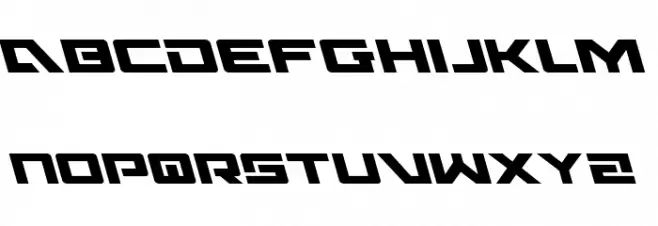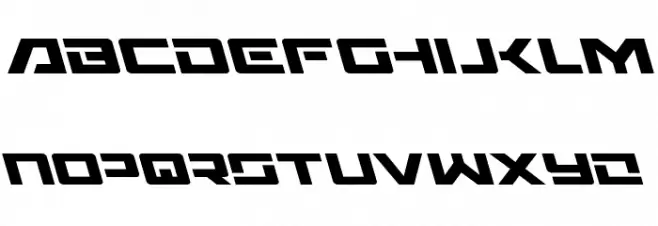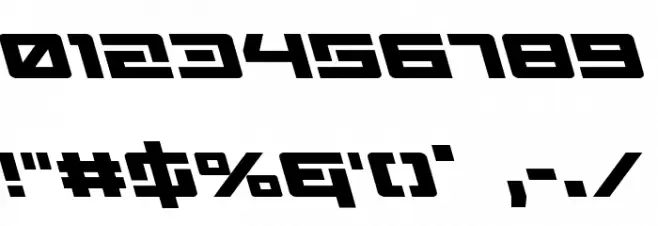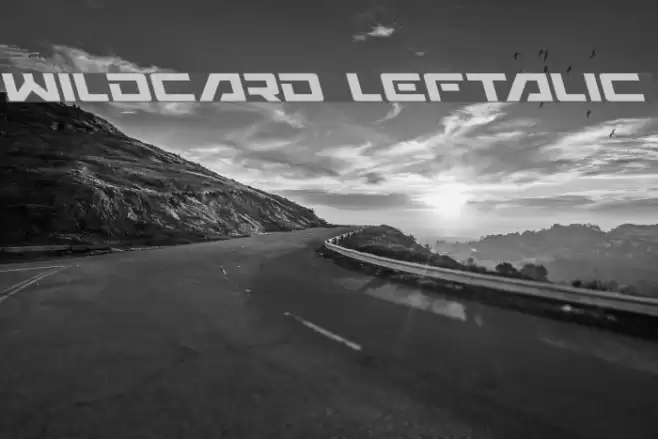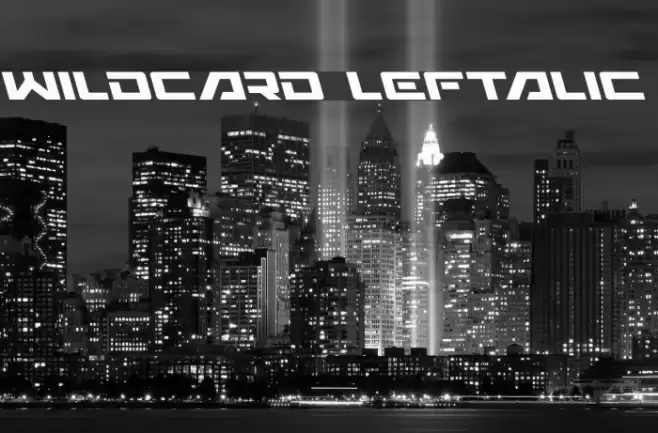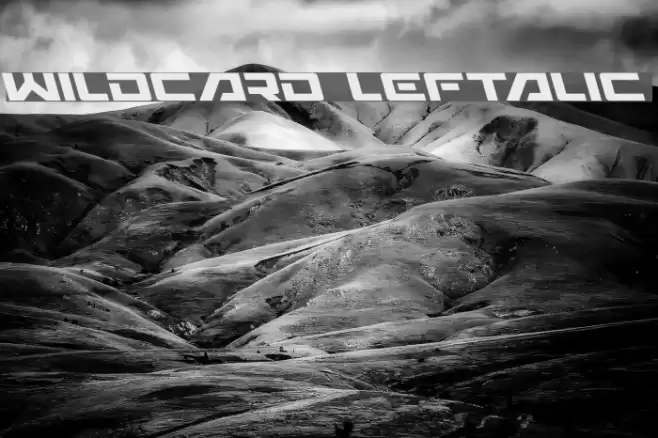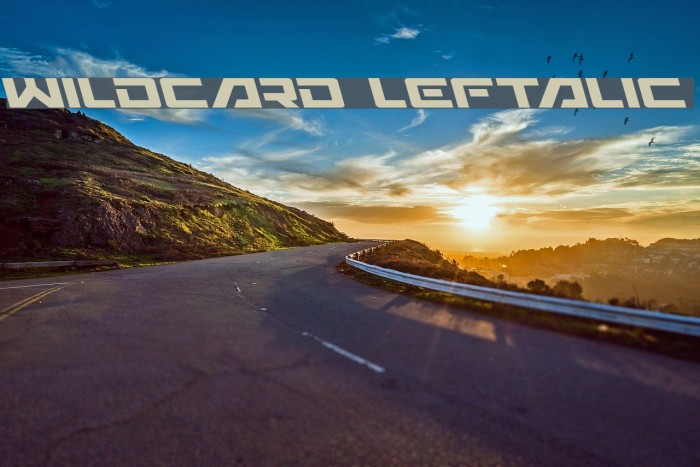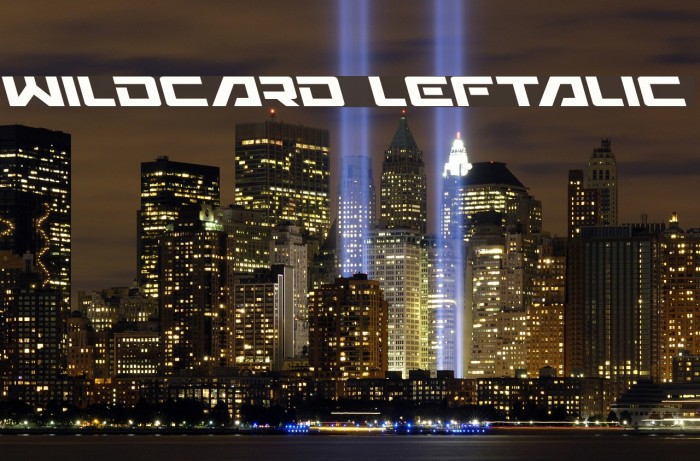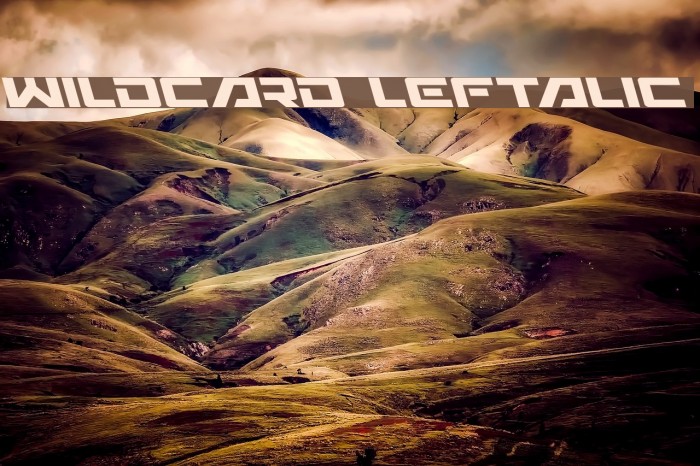
Wildcard Leftalic
This font features a bold, angular design with a futuristic aesthetic. The characters are constructed with sharp, geometric lines and a consistent slant, giving them a dynamic and forward-moving appearance. The uppercase and lowercase letters maintain a uniform style, with the lowercase slightly smaller but equally bold. Numbers and special characters are designed to match the overall angular theme, ensuring visual consistency across all glyphs. The font's distinct style makes it ideal for projects that require a modern and edgy look.
A bold, angular font with a futuristic and dynamic design.
- Proposed Projects: Ideal for sci-fi themed projects, video game titles, tech branding, and modern posters.